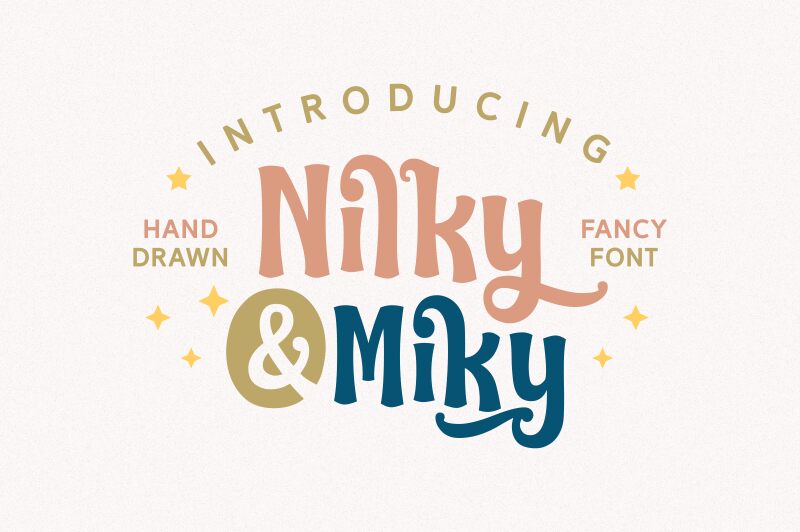
Nilky & Miky
Nilky & Miky is a distinct display font, designed by 7NTypes, that commands attention with its bold, expressive strokes. The exaggerated, slightly uneven letterforms convey a sense of energy and movement, making it well-suited for headline text, branding, and attention-grabbing designs. The font's playful, almost handwritten aesthetic lends it versatility, allowing it to be used in a variety of contexts, from contemporary editorial layouts to edgy product packaging.
Its strong visual impact and distinctive character make Nilky & Miky an impactful choice for designers seeking to create memorable, visually striking designs.